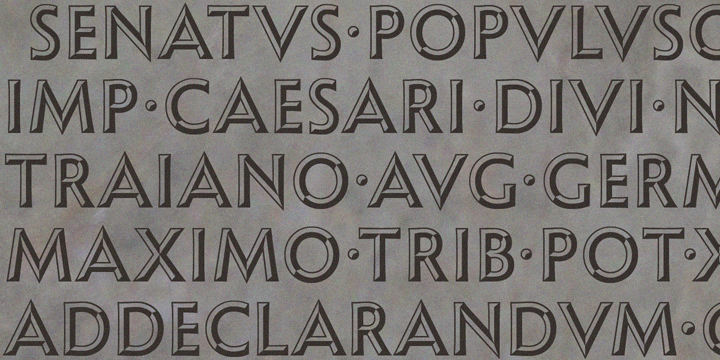
Shàngó Chiseled Font is perfect for African cultural festivals, traditional art gallery exhibitions, tribal museum displays, heritage craft branding, indigenous artwork presentations, cultural preservation materials, spiritual ceremony programs, and authentic African storytelling publications.
This font is exciting because it embodies the powerful spiritual energy and ancient wisdom of African traditions with bold, carved letterforms that evoke the strength of ancestral heritage and sacred artistry. The Shàngó Chiseled Font captures the essence of African cultural power and spiritual connection, transforming ordinary text into reverent expressions that honor the rich traditions and profound wisdom of African civilizations and ancestral knowledge.
The Shàngó Chiseled Font family includes spiritually inspired variations such as Regular, Bold, Light, Carved, Italic, Sacred, Condensed, and Extended versions, providing African cultural designers with comprehensive tools to create authentic typography that celebrates African heritage and honors the spiritual traditions of the continent across all cultural applications.
Honor ancestral wisdom with Shàngó Chiseled Font Free Download that brings African spiritual power to every cultural design project. This reverently crafted typeface combines traditional African aesthetics with contemporary functionality, making it perfect for cultural institutions, African heritage organizations, and brands celebrating the artistic and spiritual traditions of Africa. The font's powerful character design ensures your message conveys cultural respect and spiritual authority while maintaining excellent readability across all applications. Whether you're developing African cultural center branding, creating heritage celebration materials, or designing projects that honor African traditions, Shàngó Chiseled Font delivers the authentic typography that resonates with audiences who appreciate African culture and spiritual heritage. Its versatile design works beautifully across digital and print media while preserving the sacred strength that makes African communications feel genuinely respectful and worthy of the profound spiritual traditions that define African civilization and ancestral wisdom.